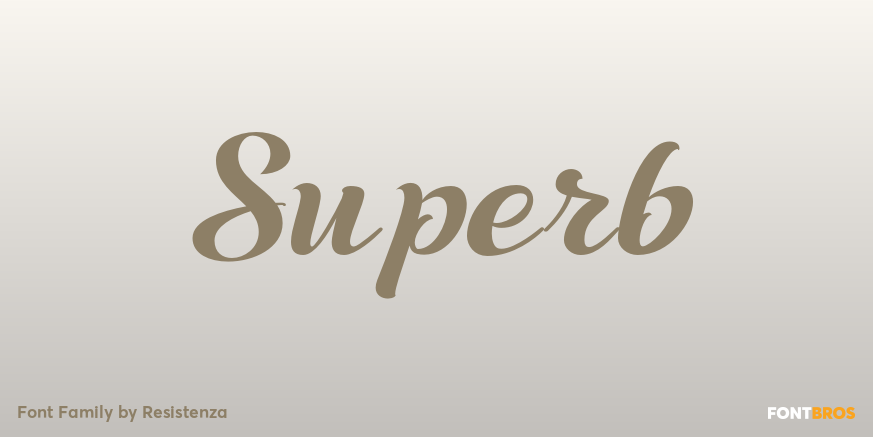
About Superb
Influenced by lettering shapes from the sixties and seventies, Superb\’s psychedelic curves were created with a real brush pen. Includes various swashes with volume and curls, negative figures and a full alphabet set with cut out shapes. Designed with…